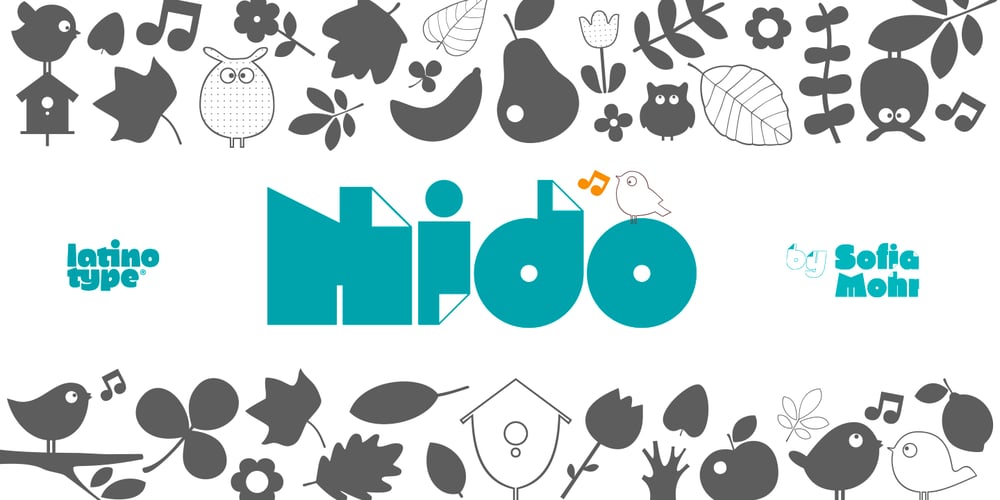
Nido Font Family was designed by Sofia Mohr and published by Latinotype. Nido contains 5 styles and family package options. Nido is a cute and funny childish typeface, designed for logos, book titles, invitations, birthday cards, flyers, posters, advertising, etc. It comprises 5 styles: black, white, black italic, white italic and dingbats, which can be used nicely together. Nido is a new design by Sofía Mohr. See also Café Brasil http://www.myfonts.com/fonts/sofia-mohr/cafe-brasil/